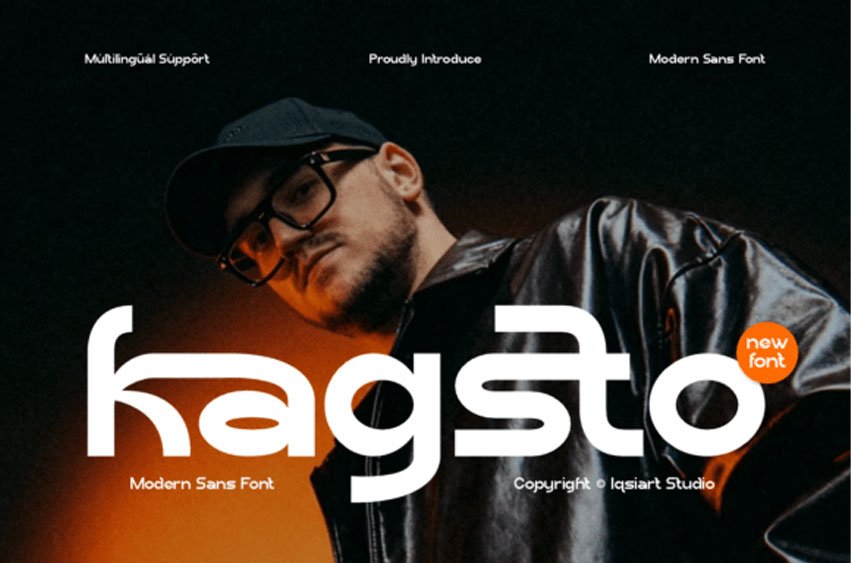
Kagsto Font Infuse your creative canvas with a high-octane drop of streetwear luxury using Kagsto, a cutting-edge modern display sans typeface.
This font features heavy, horizontally expanded lowercase letterforms uniquely characterized by sweeping curve dynamics, open stencil-like breaks, and an architectural structural baseline that bridges the gap between premium techwear apparel branding and electronic music subculture zines.
With its solid weight footprint and unapologetic urban swagger, Kagsto is the premier choice for independent lifestyle logos, boutique capsule merchandise, electronic music festival posters, and high-impact “sleek-and-experimental” social media titles.